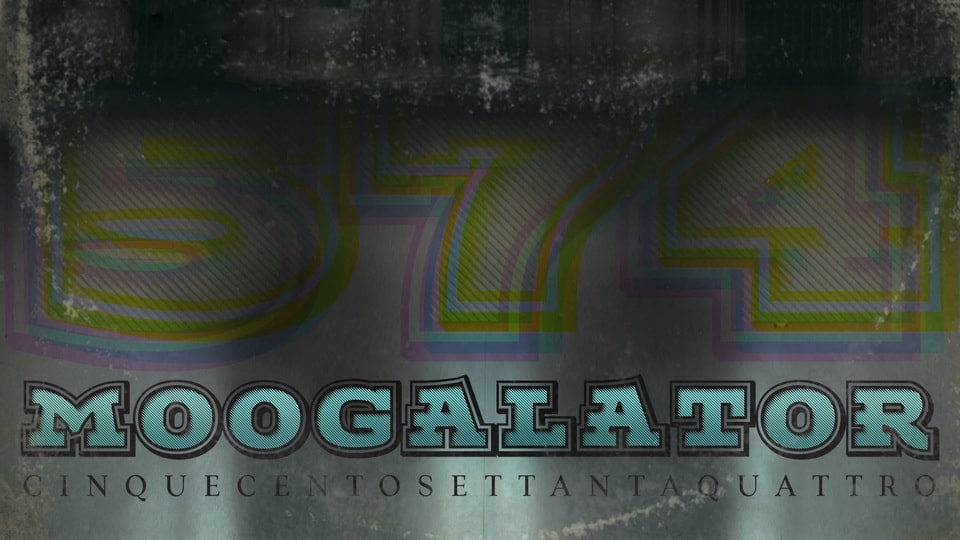
Download Moogalator font, a bold and striking slab serif typeface with thick letterforms and a dynamic 3D effect with its shaded and outlined design.